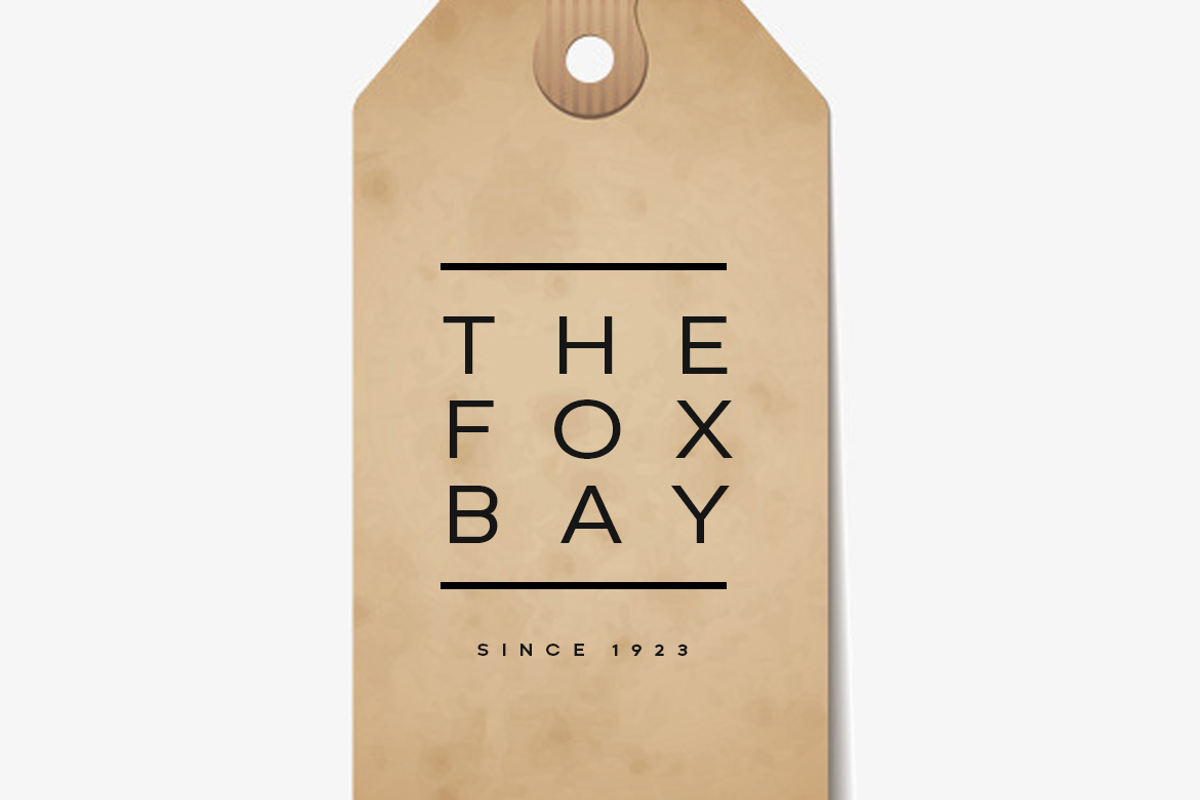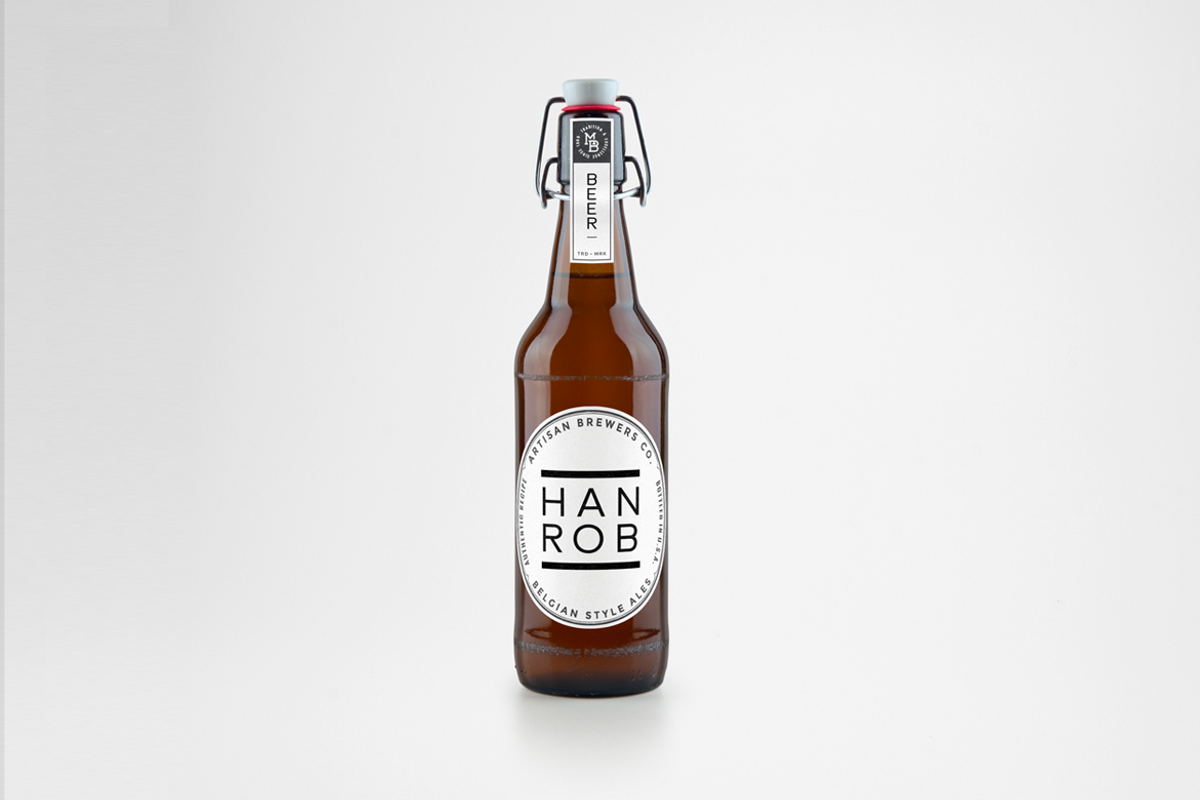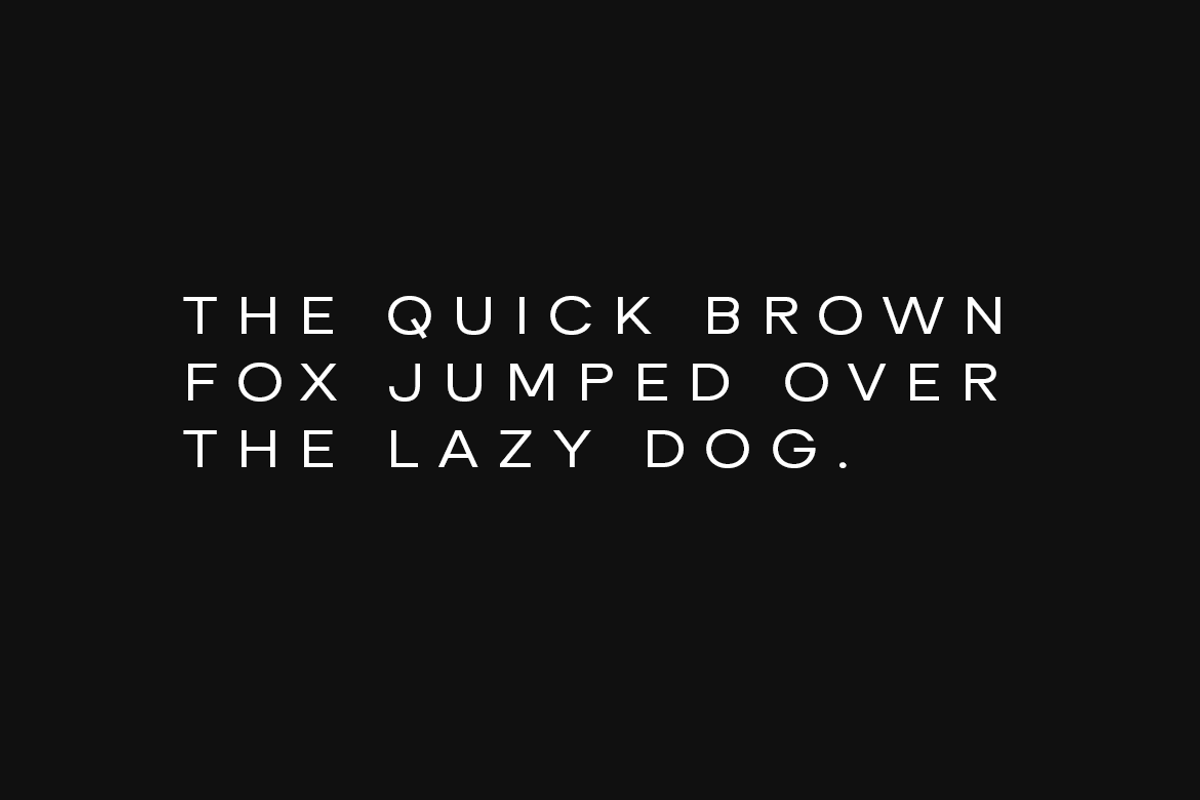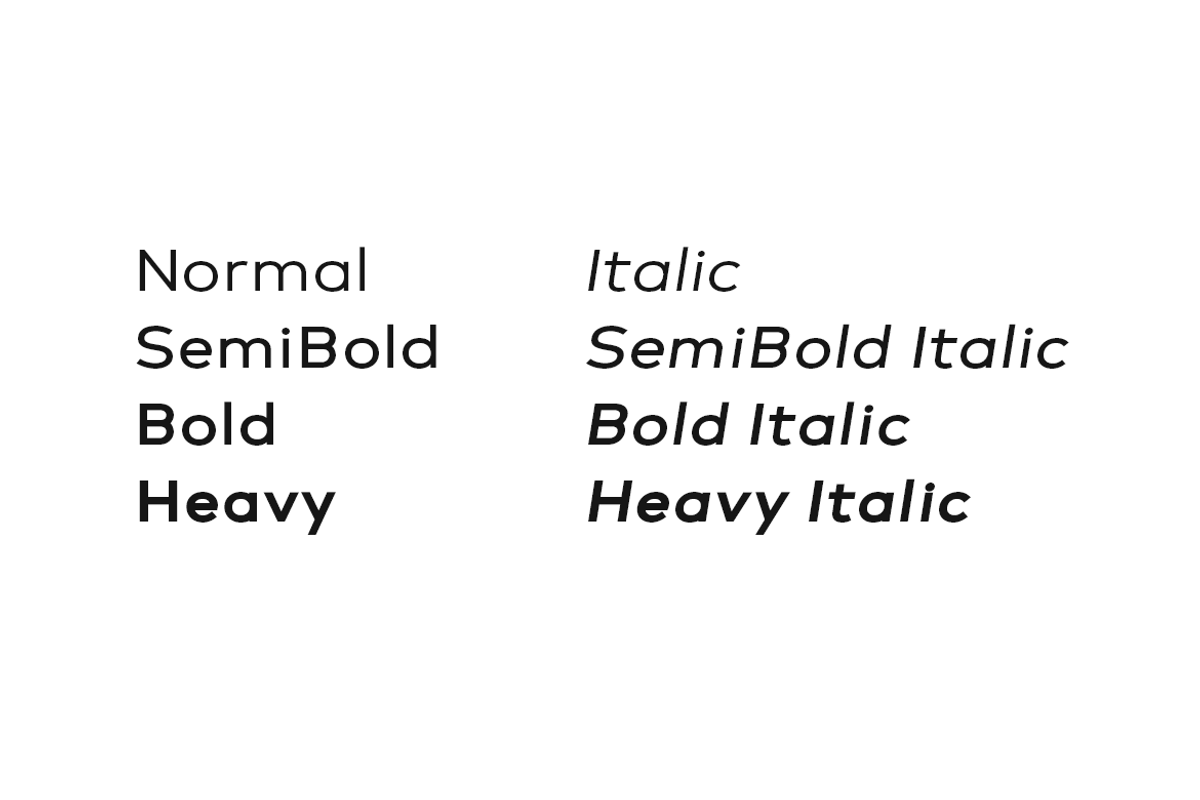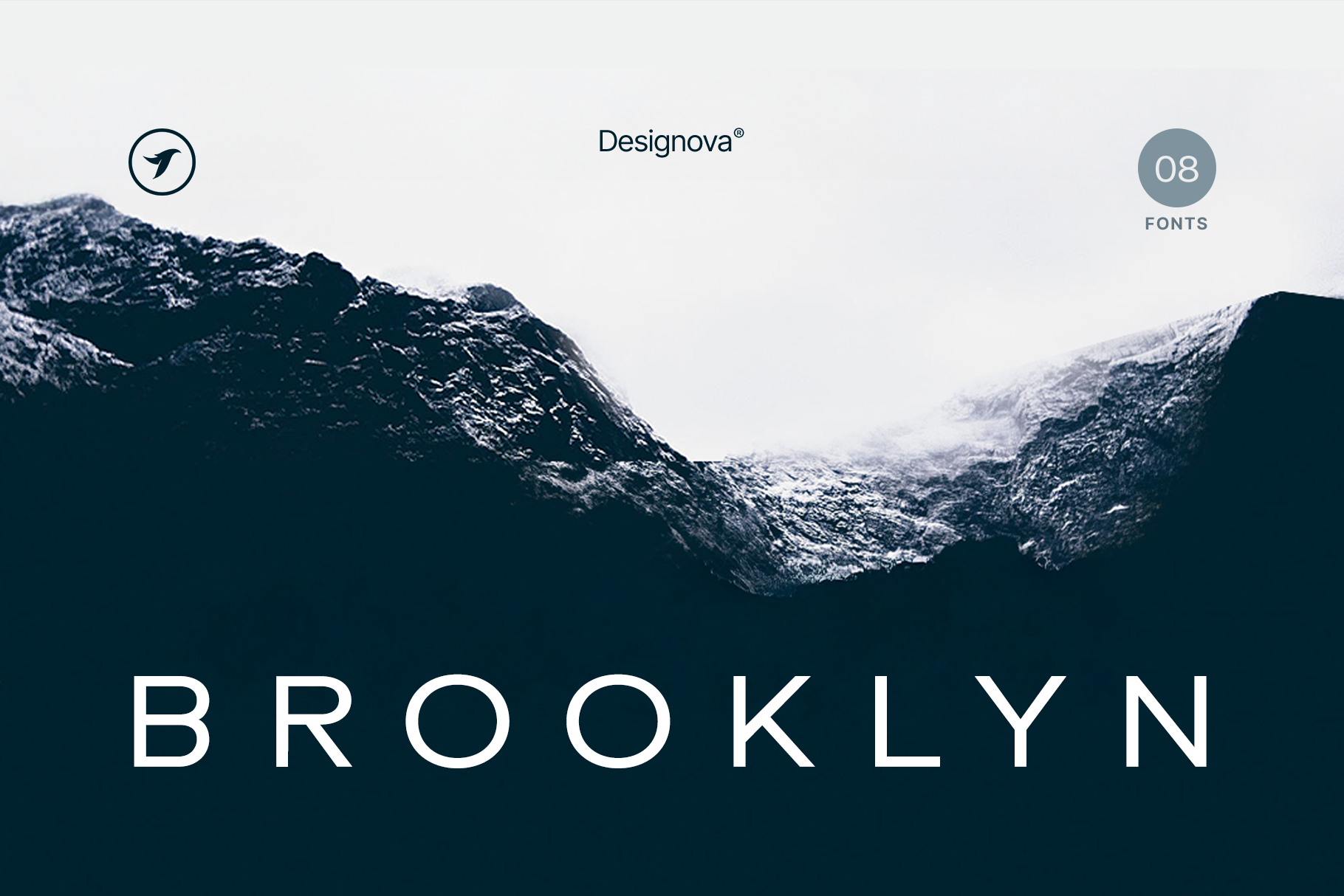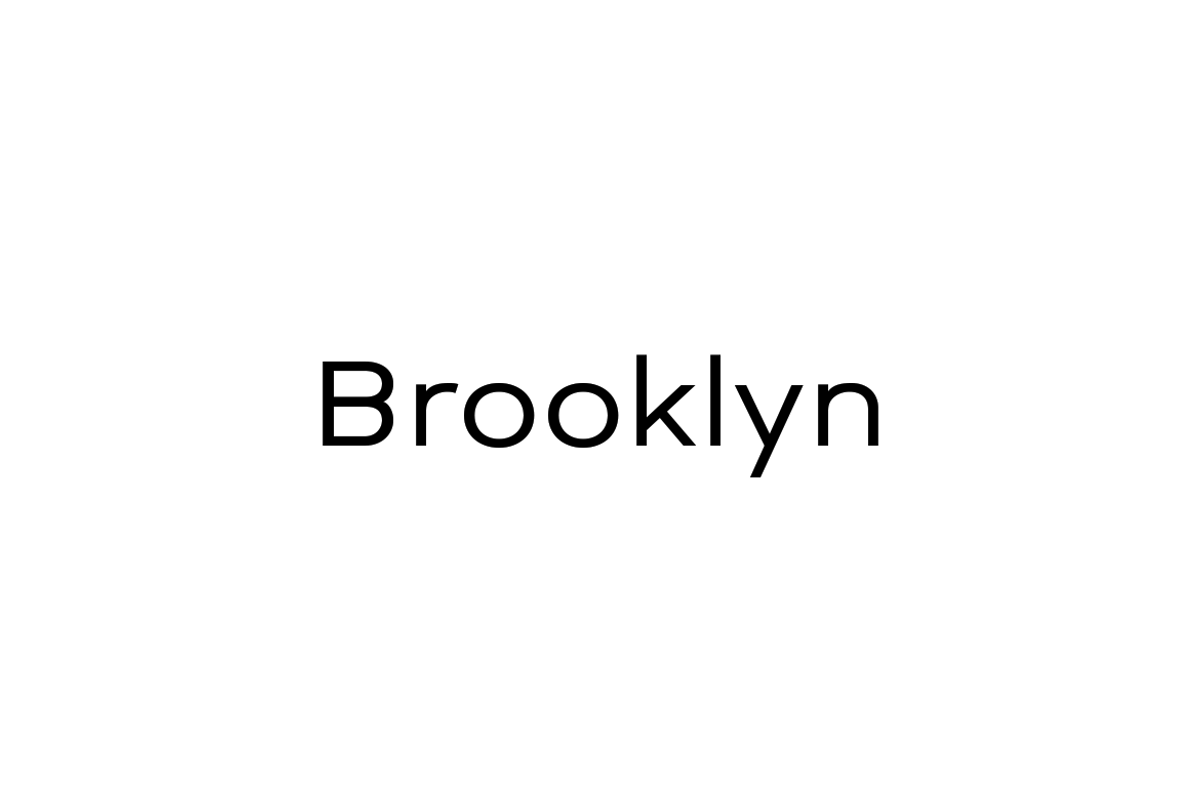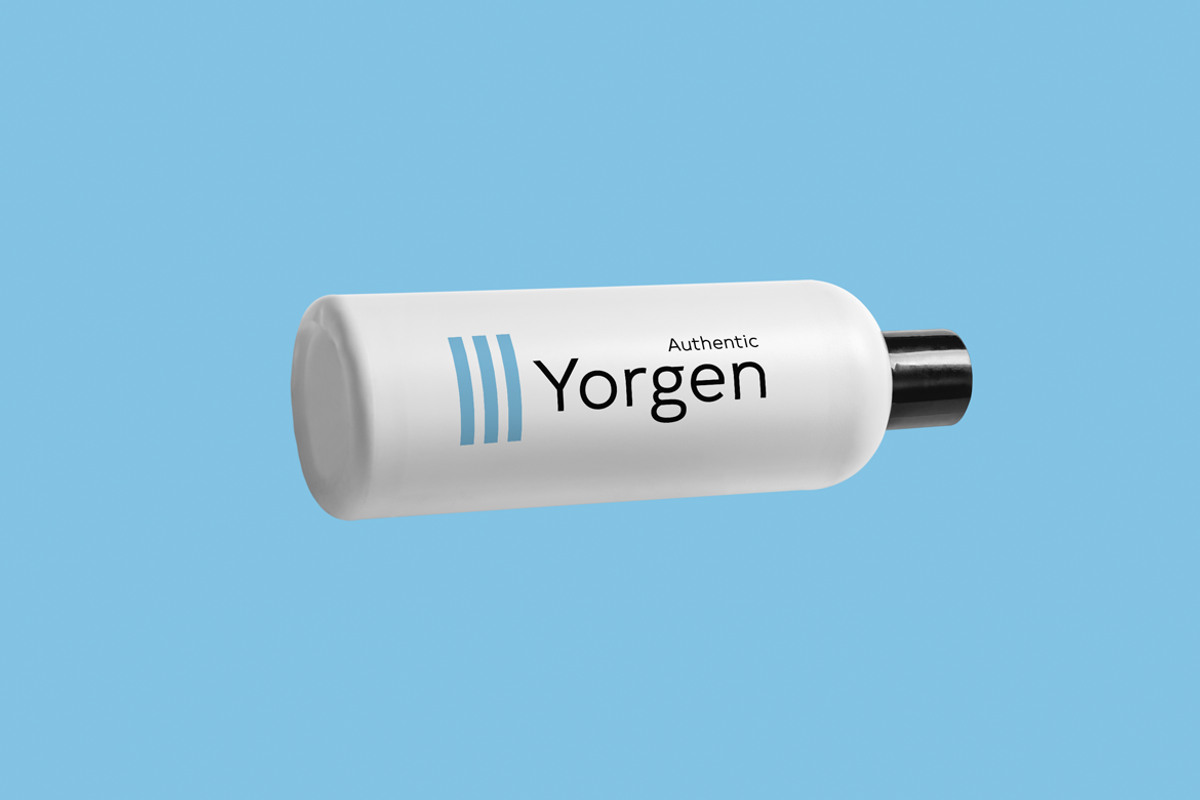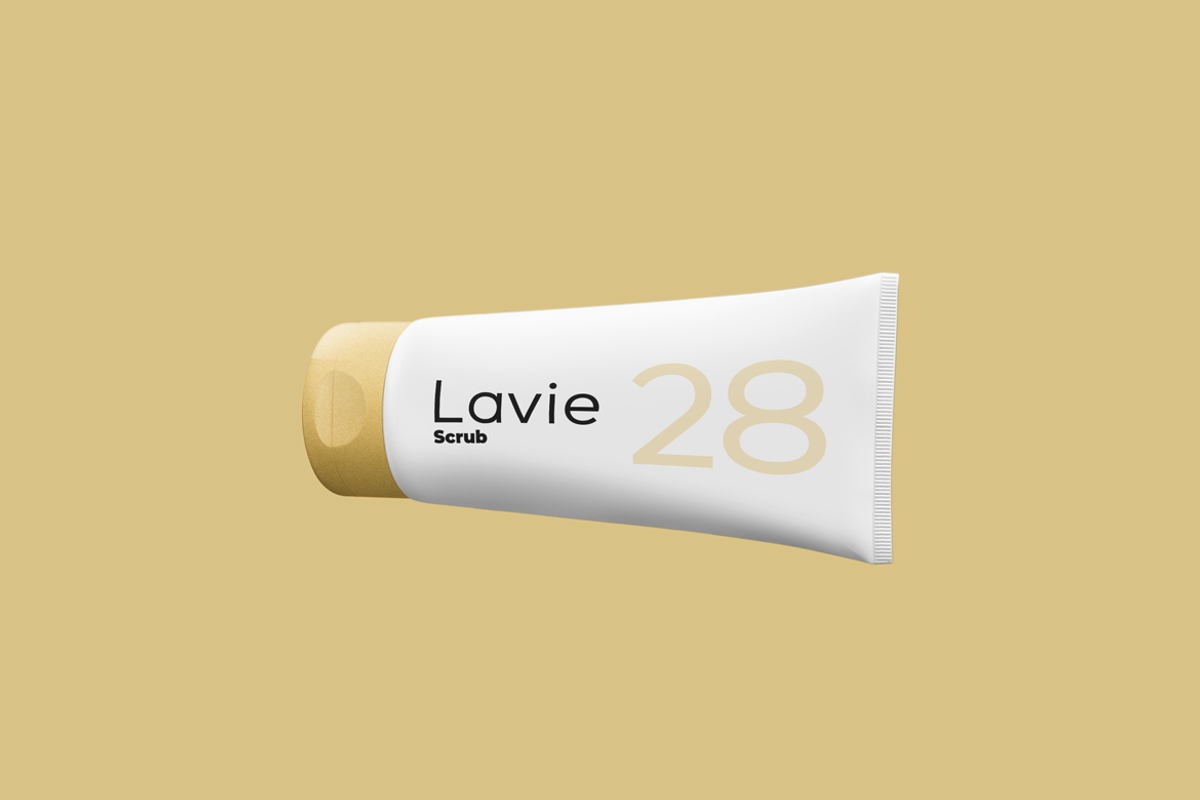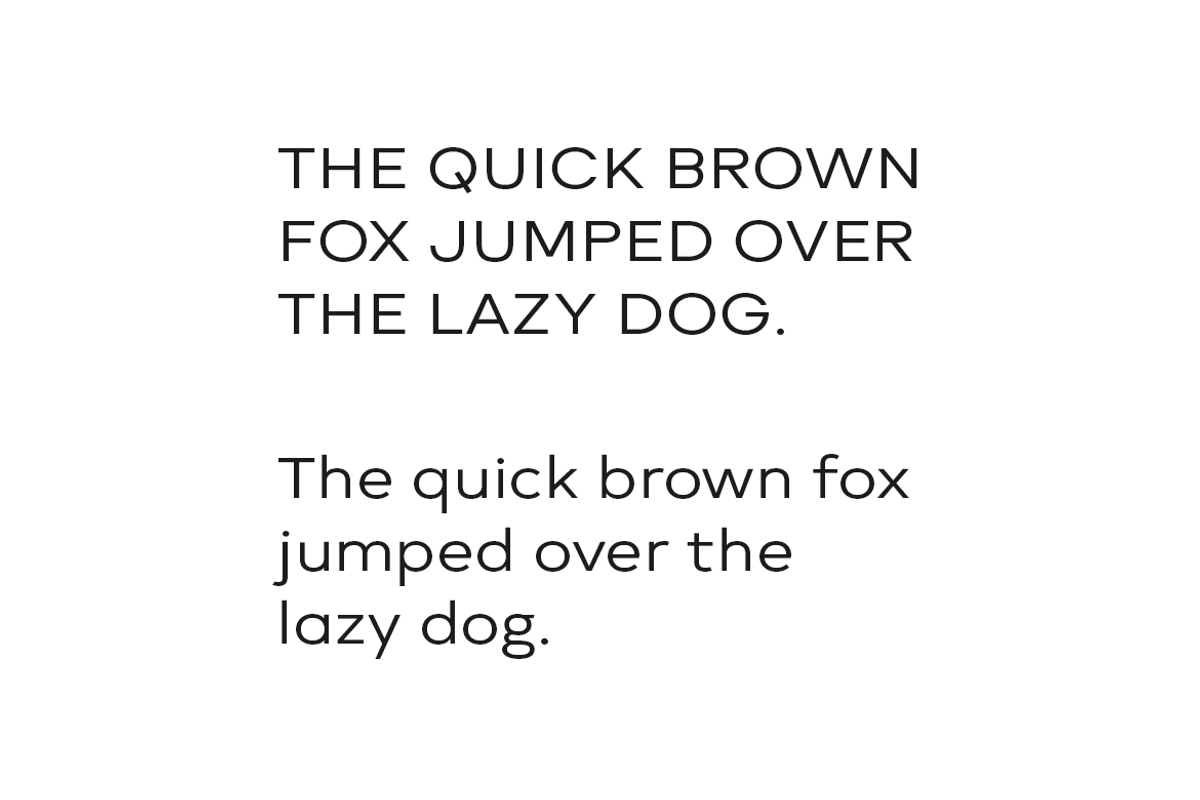
BROOKLYN - Minimalist Font Family
BROOKLYN is a modern Sans-Serif typeface inspired by classic geometric typefaces that keep the minimalism at its level best. BROOKLYN will be perfect for creating nicely looking headlines (add some letter spacing and it will amaze you) that you always find in fashion web stores and minimal portfolio websites. You can create stunning logotypes and branding designs with this typeface (just see demo graphics to get a basic idea of how it looks).
BROOKLYN font family includes a collection of 8 fonts in total, with four upright weights and Italic equivalents of all four weights as follows:
- Normal
- Italic
- SemiBold
- SemiBold Italic
- Bold
- Bold Italic
- Heavy
- Heavy Italic
239 GLYPHS INCLUDED:
Handcrafted and designed with powerful OpenType features in mind, each weight includes extended language support with Western European, Central European, and South Eastern European sets. A total of 239 glyphs are available.